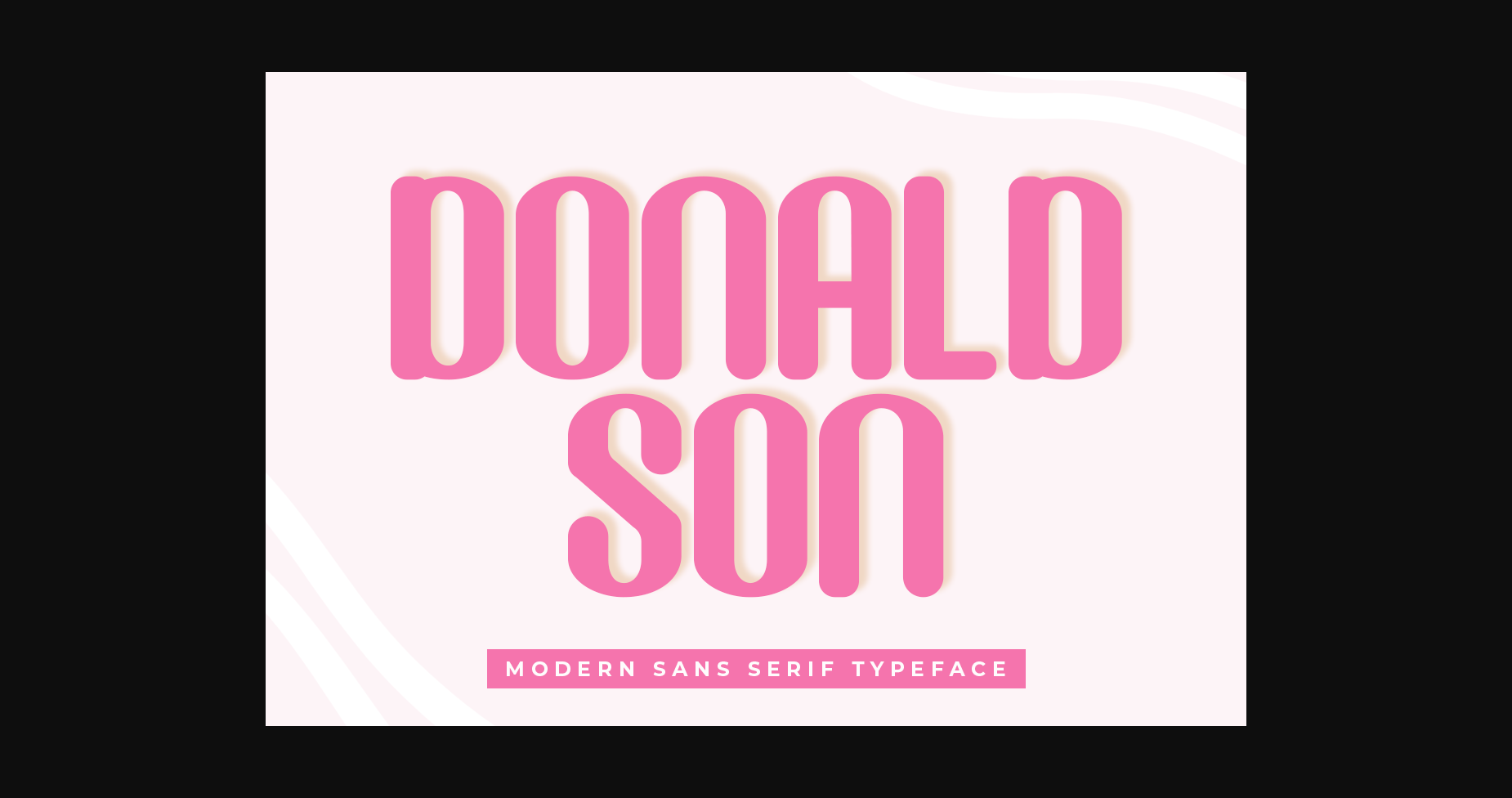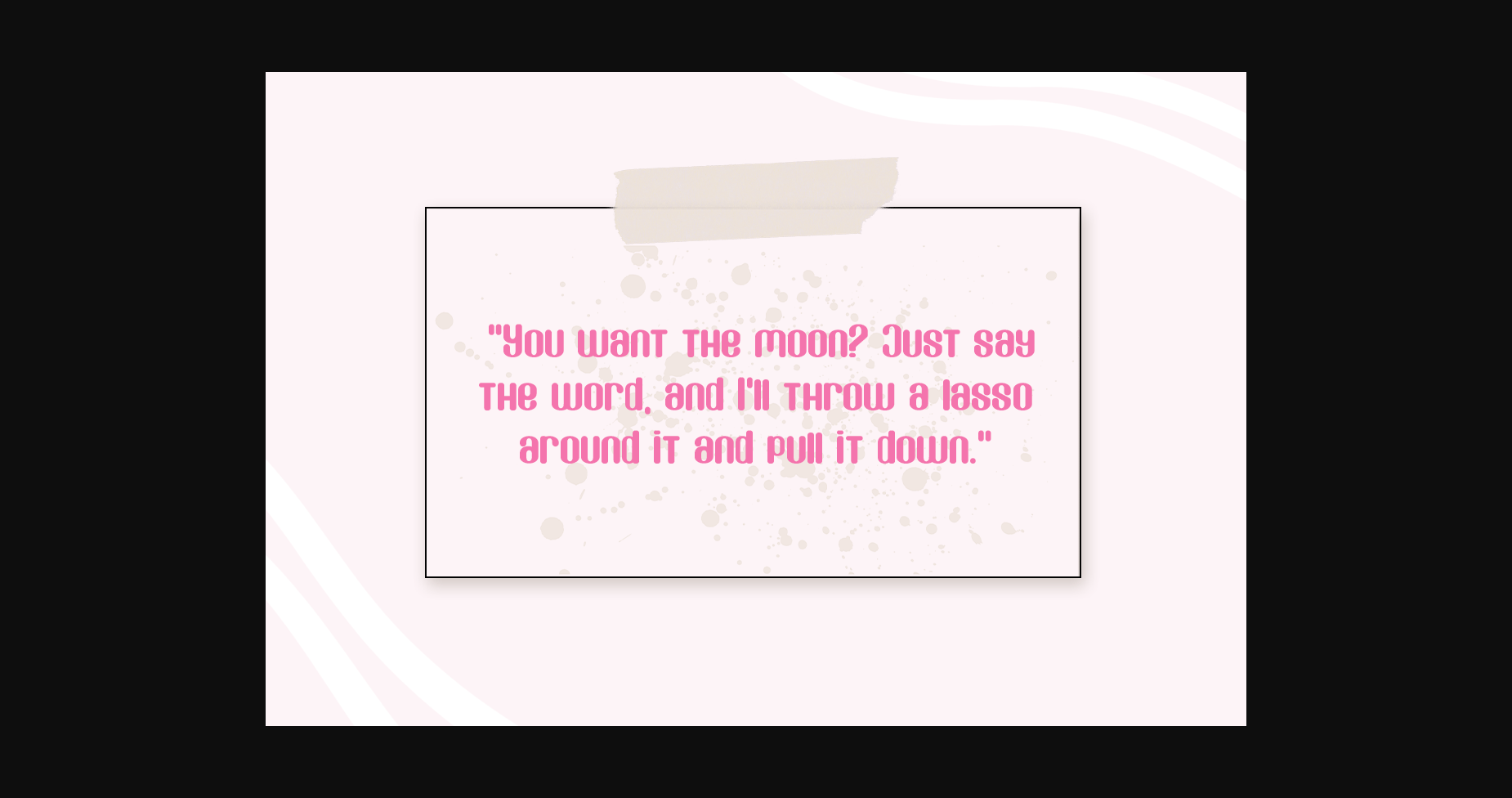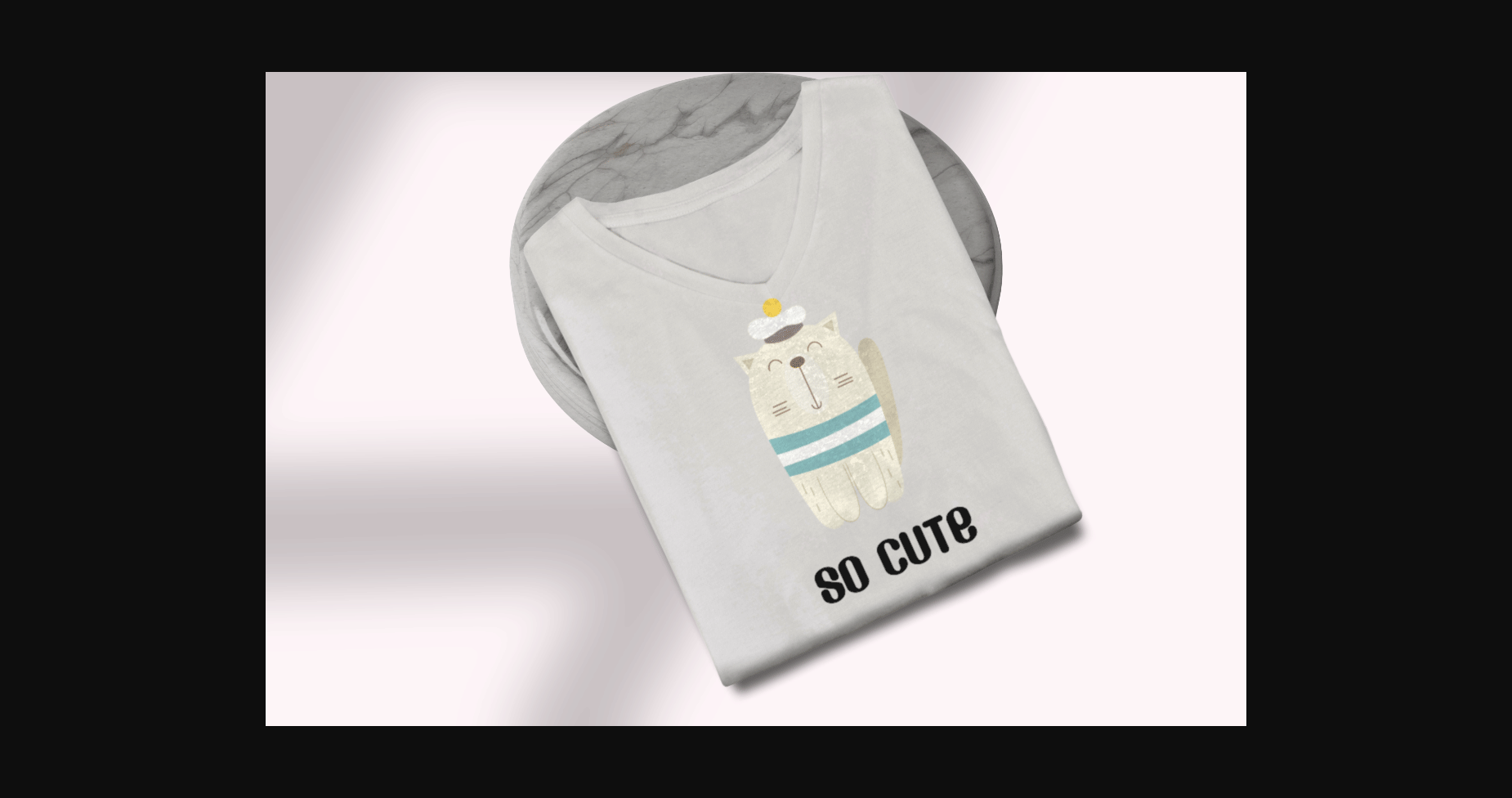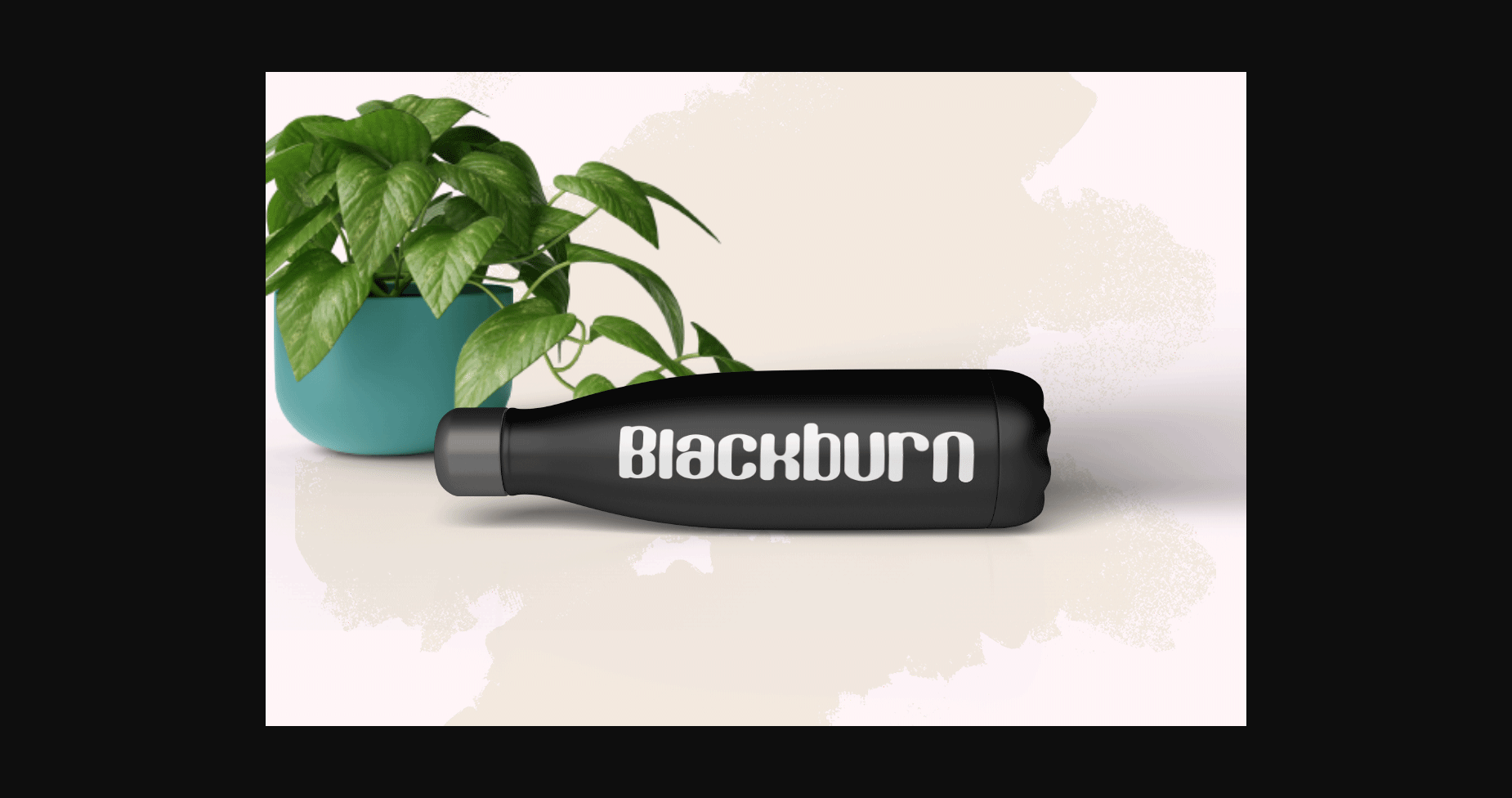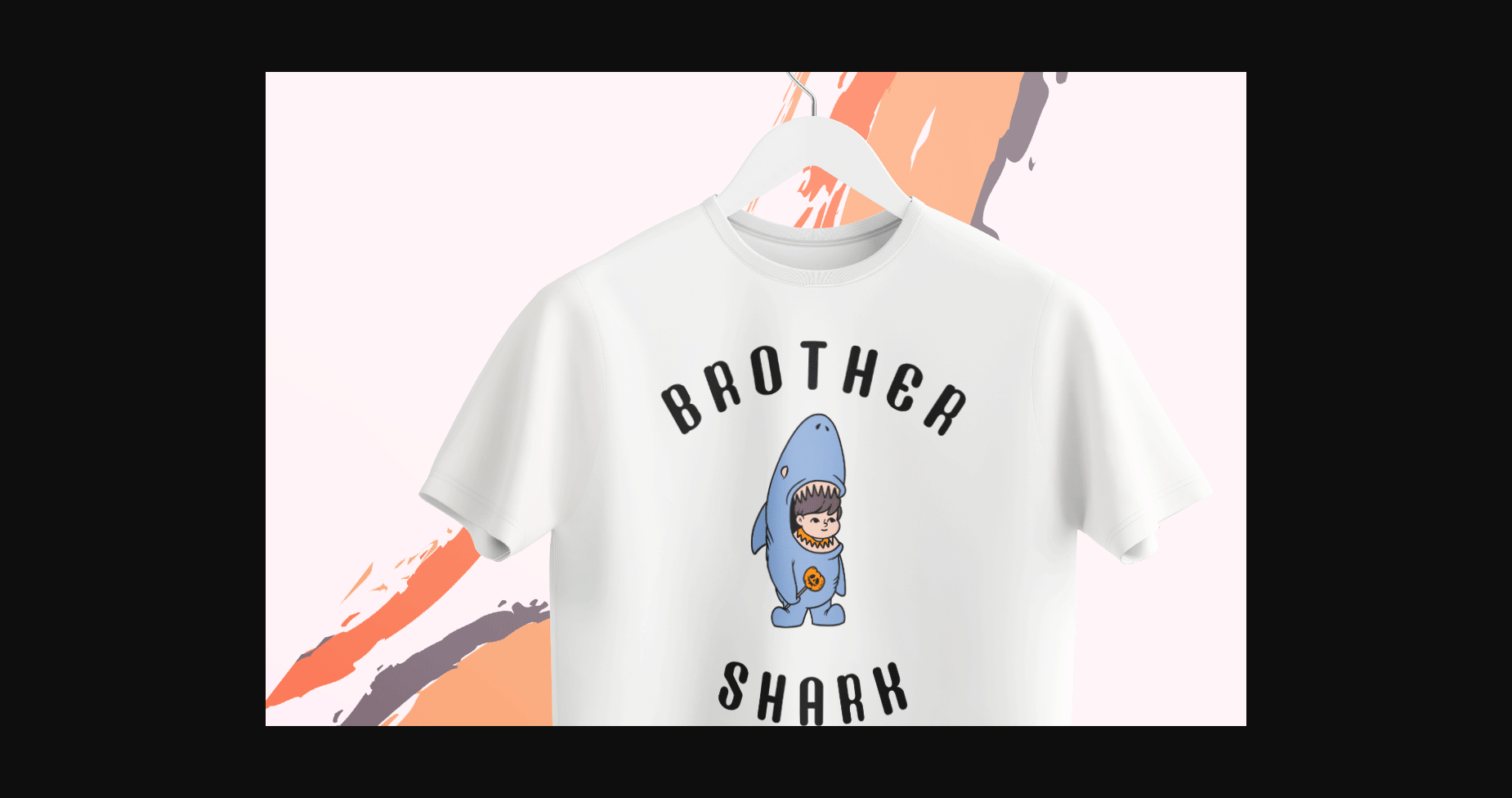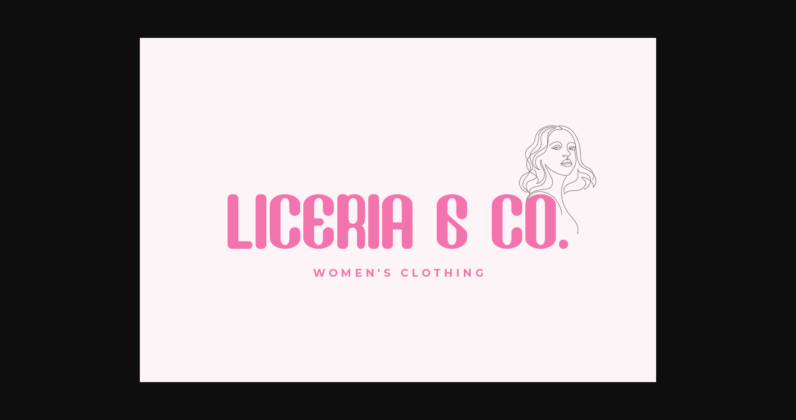
Donaldson Font
About Donaldson Font
Donaldson is a fun and cute sans serif font. Its versatility makes it perfect for kids’ projects, blog posts, logos, branding, advertisements, and more! Add it to your designs to give them a unique touch of fun.